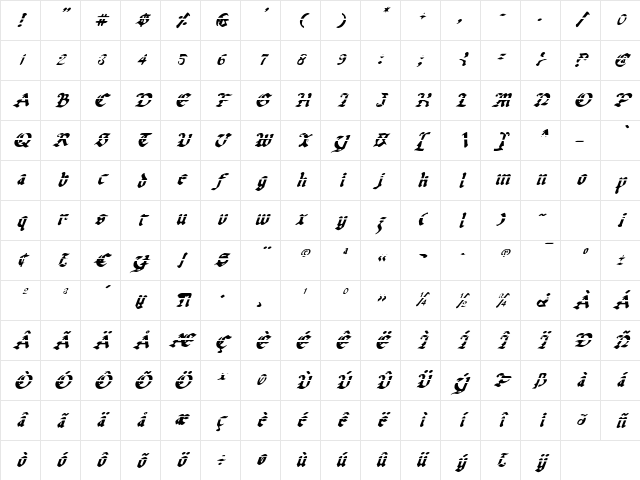
Style: Lazar Italic
Complete Uberh Lazar Italic glyph index. Displaying only characters natively supported by Uberh Lazar Italic font.
Design Context for Uberh Lazar Italic
Uberh Lazar Italic is a composed and adaptable typeface that performs quietly and consistently across a wide range of design contexts. The slanted form adds forward momentum and visual energy.
Pro Tip: Use Uberh Lazar Italic for emphasis, pull quotes, and subheadings where its slanted energy can add rhythm to the layout.